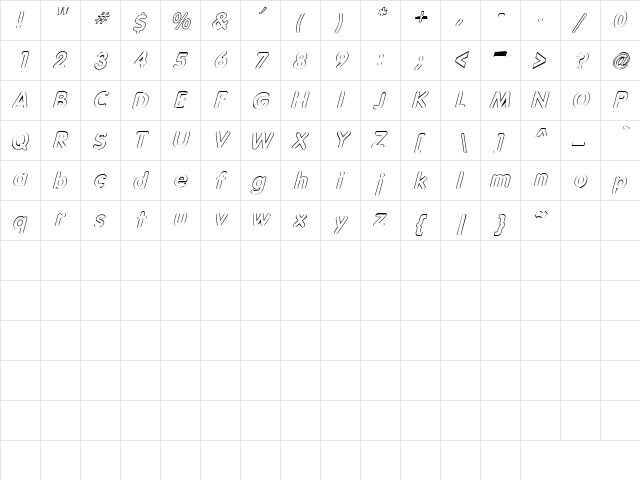
Noodles 6 Italic
Design Context for Noodles 6 Typeface
Noodles 6 takes a measured approach to typography — its balanced proportions and neutral character make it a reliable workhorse for both digital and print work. The slanted form adds forward momentum and visual energy.
Pro Tip: Try Noodles 6 for annotation and caption copy alongside an upright companion — the contrast in angle creates a dynamic but ordered typographic system.